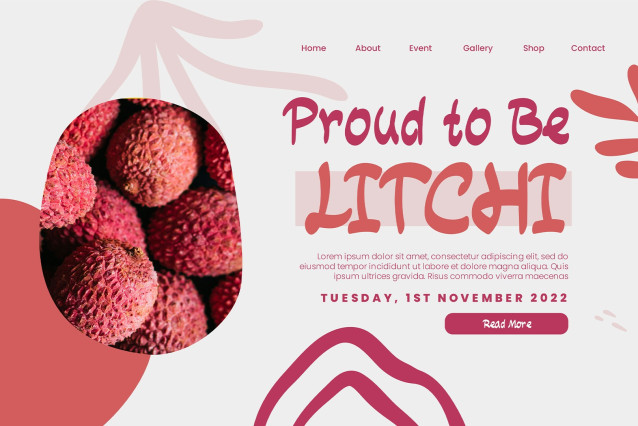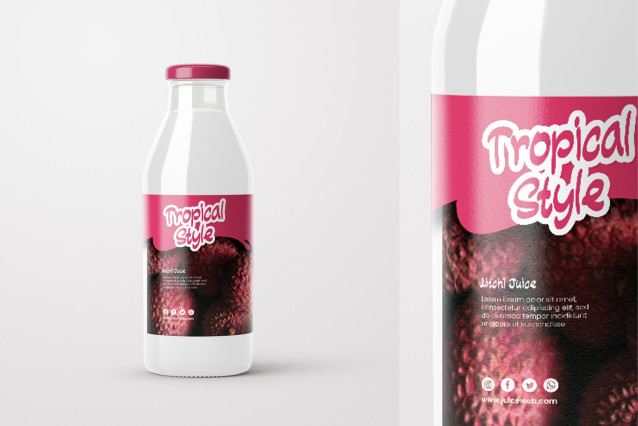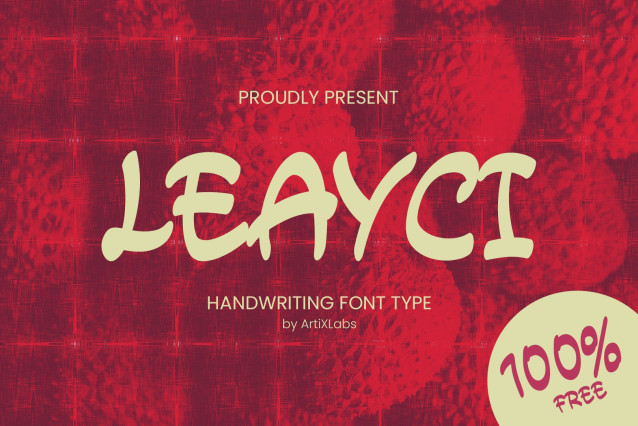
Leayci Font
Leayci Font – Display Playfull Font – This Font can be used for any variety of purposes, such as: Event, Social Media Feed,Flyer, Packaging Products, Logo Type, Branding, T-Shirt Design, Website/Blog, Headline Magazine, Brochures and also can be used for other purpose.
This Font Template contains Rounded,Versatile,Soft, Creative, Professional and Unique Concept.